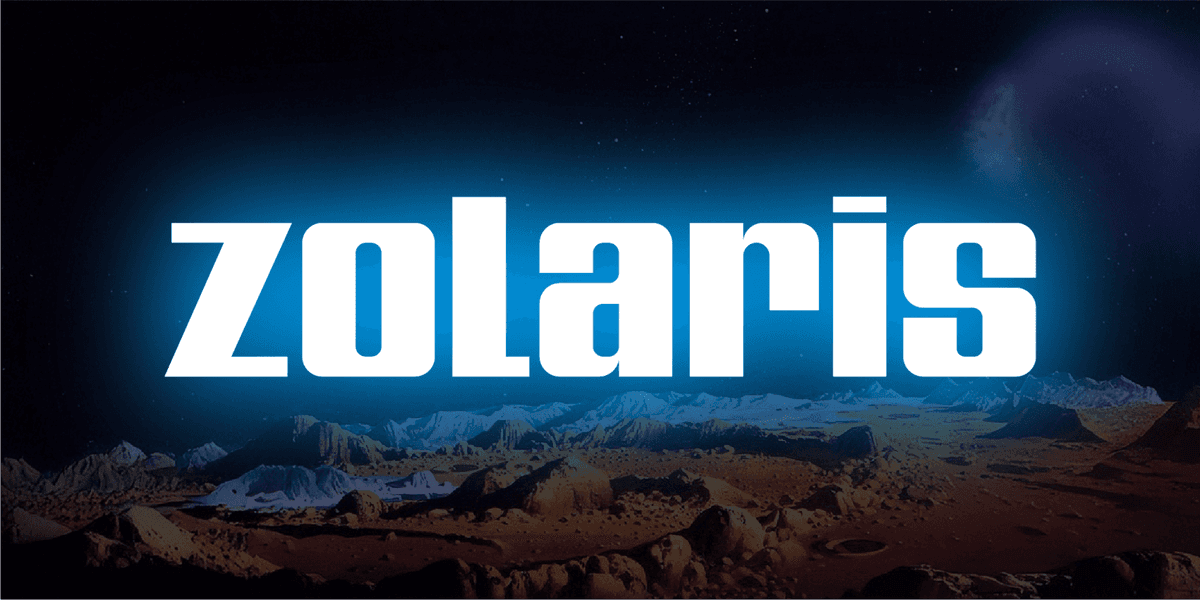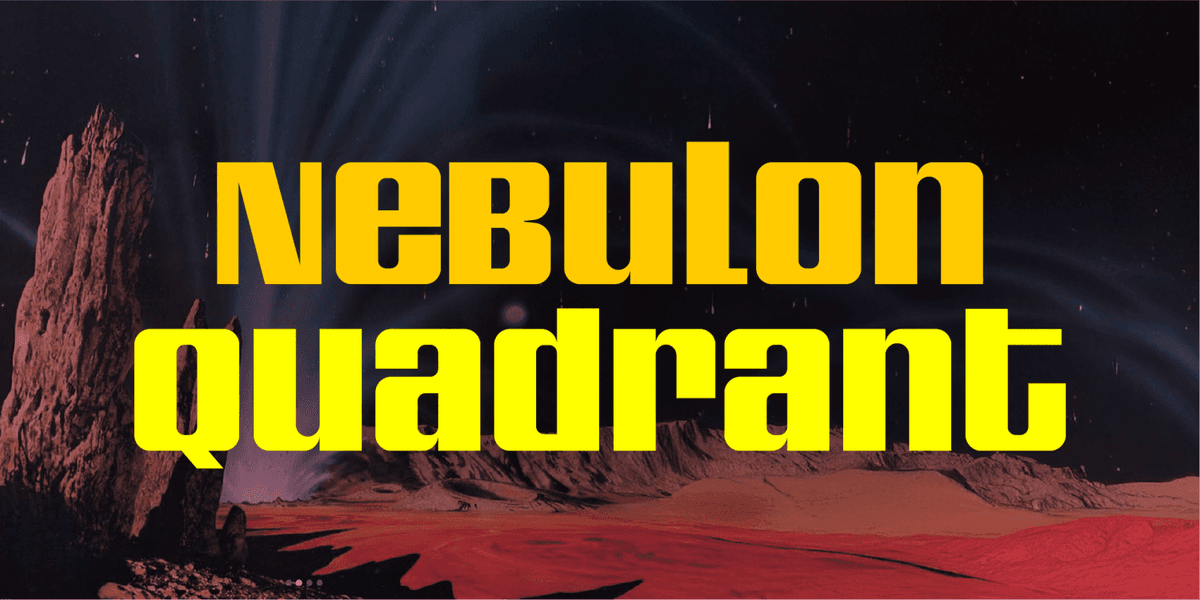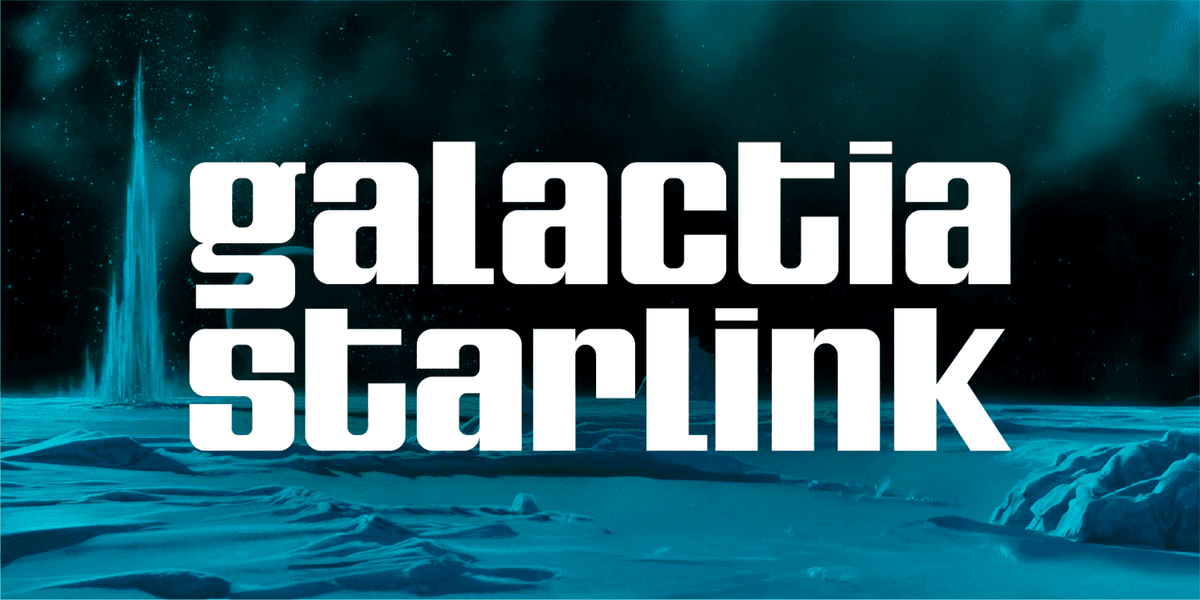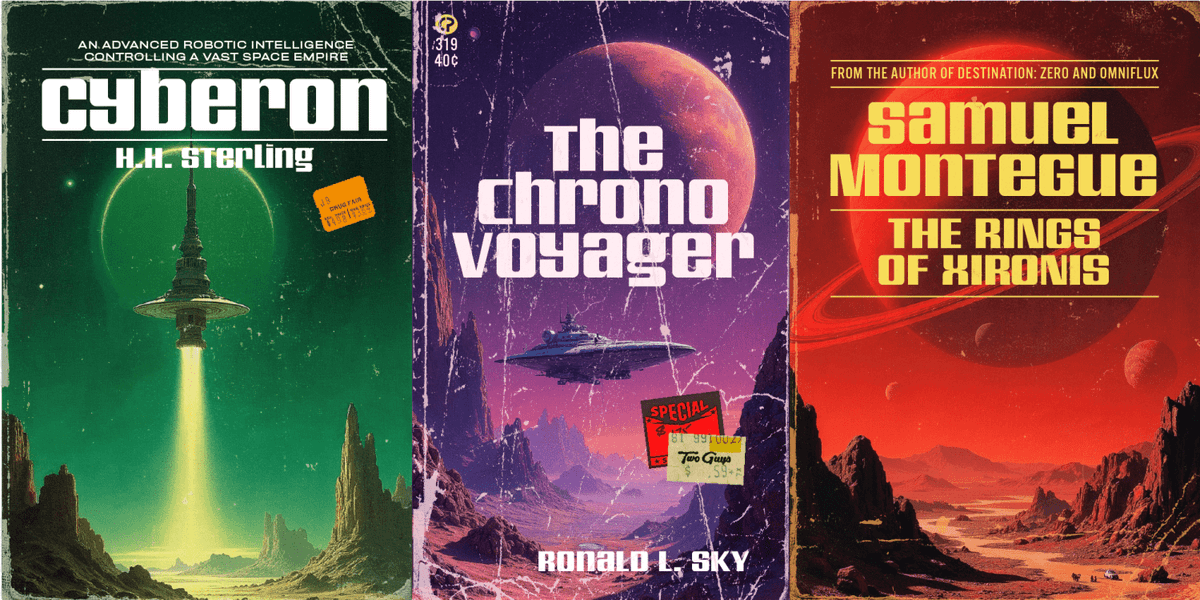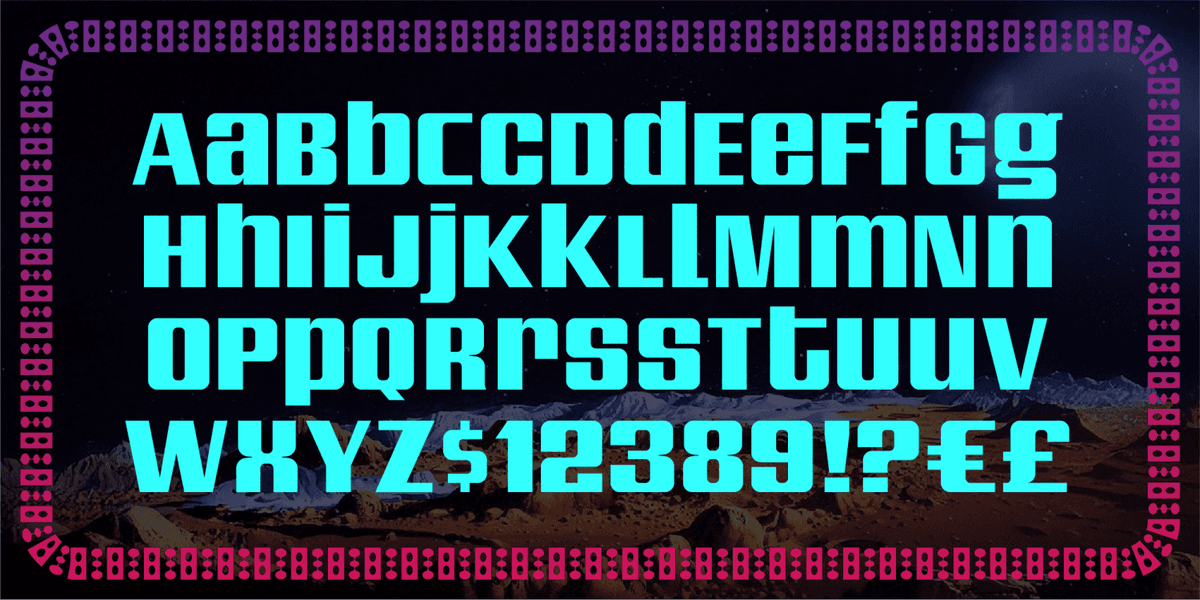
Zolaris is an intergalactic font straight out of a 1970s space odyssey. With its futuristic flair, it captures the essence of interstellar travel on board a spaceship hurtling through the galaxy. This bold typeface radiates nostalgia for retro sci-fi, making it a cosmic contender for projects that want to take your imagination on a journey through the stars!